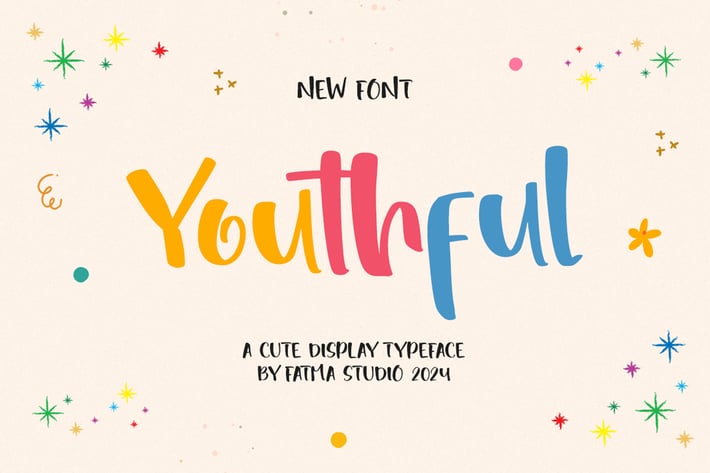
Youthful - Kids Font
Youthful is a cute and quirky display font. It will add an incredibly joyful touch to your designs. Add this beautiful font to each of your creative ideas and notice how it makes them stand out!
Ligatures, Swash, Alternates